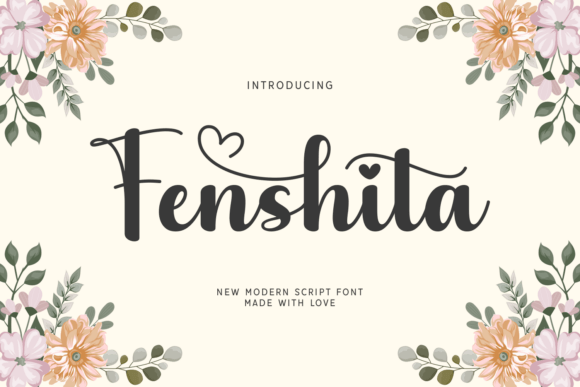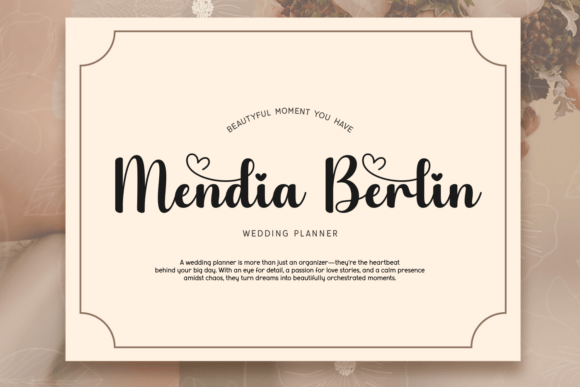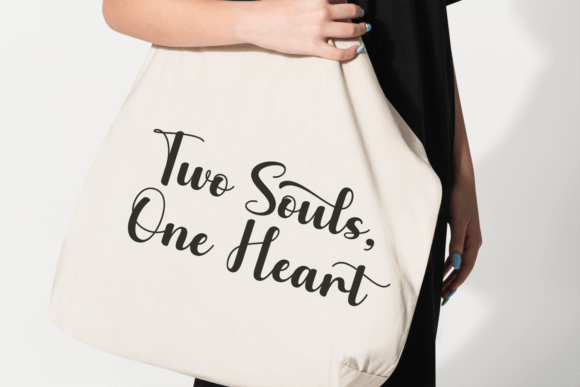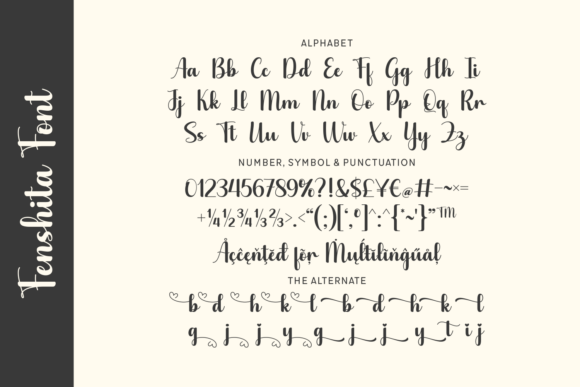
Fenshita Font: Cute Script for Wedding Invitations & Cricut Craft Projects
About the Fenshita Font
Experience the unique personality of Fenshita Font, a font designed for impact. Fenshita is a modern script font made with love—literally! Featuring elegant strokes, soft curves, and adorable heart-shaped swashes, Fenshita is perfect for wedding invitations, Valentine’s Day designs, romantic branding, and heartfelt quotes. Its clean, flowing style adds a handcrafted charm that makes any project feel special and personal.
Fenshita’s elegant yet playful nature makes it ideal for branding projects requiring a touch of romance or handcrafted charm, particularly logos, short taglines, and social media graphics. It also excels in wedding stationery and packaging for products emphasizing quality and sentiment. However, its script style is less suitable for body text or UI elements where readability is paramount; the swashes, while charming, can hinder legibility in longer passages.
Pairing Fenshita effectively requires considering its inherent softness. A clean sans-serif like Montserrat or Lato provides a strong contrast and enhances readability when used for supporting text. For a more luxurious feel, a classic serif such as Garamond or Playfair Display creates a sophisticated pairing, balancing Fenshita’s playful curves with a touch of timeless elegance.
The overall personality of Fenshita is best described as elegantly playful; it conveys both sophistication and warmth, making it suitable for brands aiming for a friendly yet refined image.
Fenshita Font Usage Examples
Fenshita Font Example